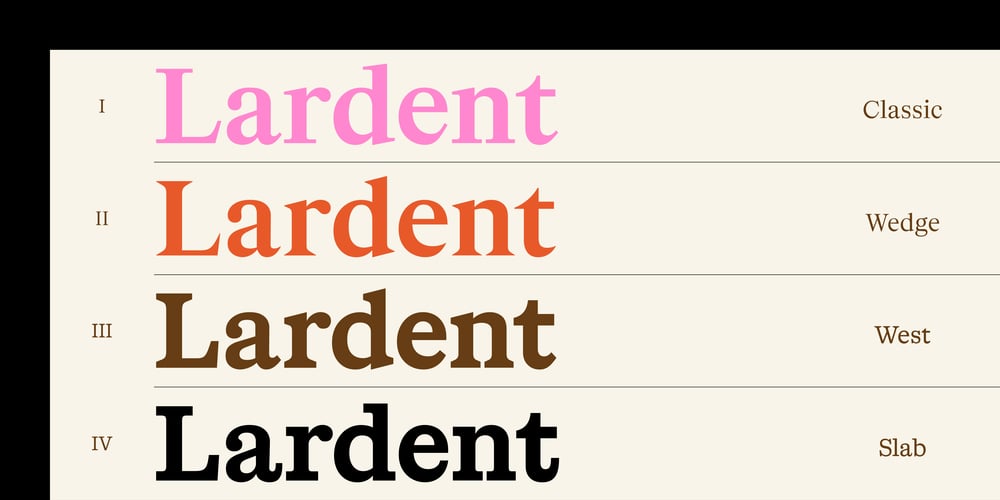
Lardent
Lardent font
Lardent Font Family was designed by Colophon Foundry and published by Colophon Foundry. Lardent contains 24 styles and family package options. Lardent, an eponym for the designer of Times New Roman, Victor Lardent, is a classically inspired Serif typeface. Featuring prominent and well defined Serifs, the “Classic” family offers a pared back take on traditional designs, removing some of the original eccentricity to create a modern, consistent aesthetic suitable for headlines and body copy and for use in both digital and print settings.Encompassing four families, each featuring a distinct style of Serif, Lardent’s standout feature is the fusion of Slab and Wedge Serif designs to create a unique visual texture that incorporates the density of a Slab Serif with subtle wedge shapes. This culminates in the transitional “West” Serif family which lies between the alternate Slab and Wedge families. All four families, Classic, Slab, Wedge and West, are available in a singular variable file, enabling access to a full scale of intermediary stages between each Serif style.